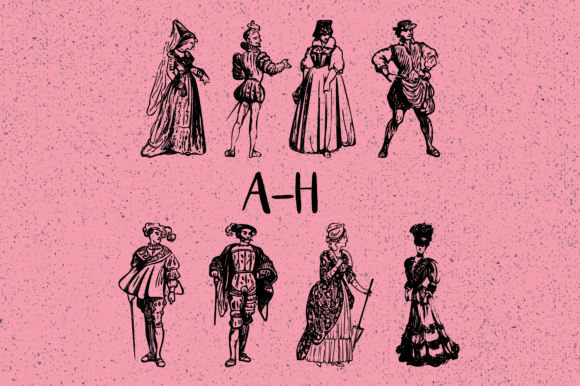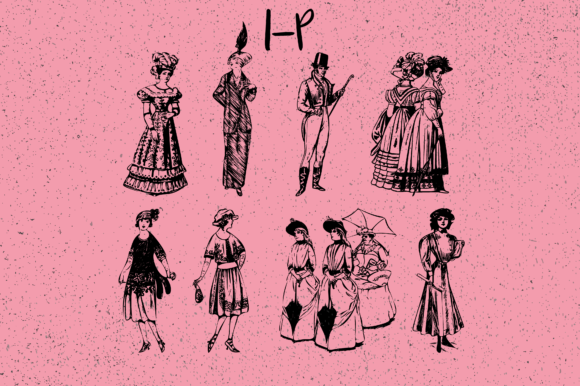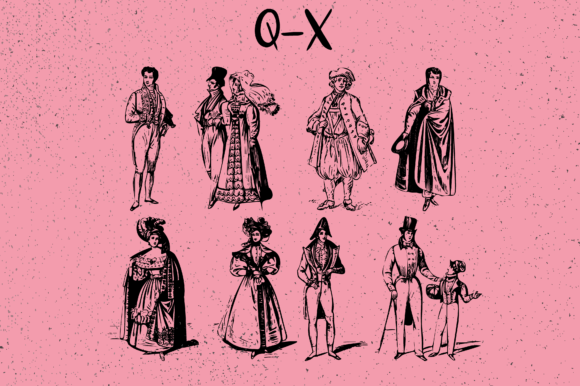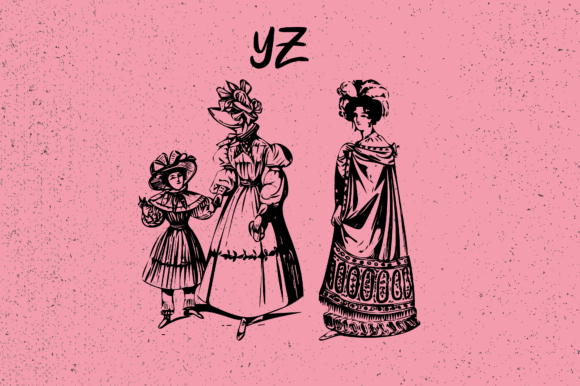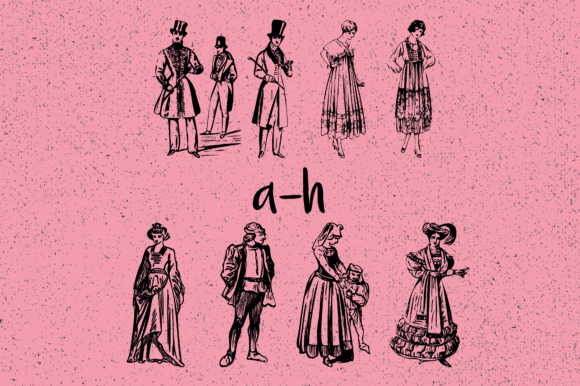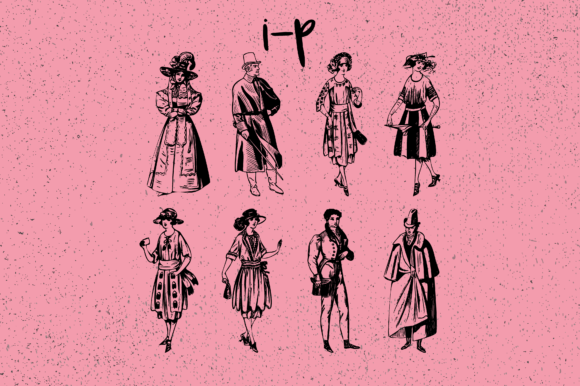
Introduction to Ladies & Gentlemen Font
Have you ever found yourself stuck in the middle of a creative project, searching for the perfect design element to bring it all together? We’ve all been there. As designers, we’re constantly on the lookout for unique resources that can elevate our work and make it truly stand out. That’s why we’re excited to introduce you to the Ladies & Gentlemen Font, a game-changing dingbats font that’s sure to become a staple in your design toolkit.
With its 62 vintage characters, this high-quality font is a treasure trove of creative possibilities. Whether you’re working on a vintage-inspired project or simply need a fun and quirky element to add some personality to your design, the Ladies & Gentlemen Font is the perfect design resource. And the best part? It’s available for free download, so you can start incorporating it into your creative projects right away.
Key Features of Ladies & Gentlemen Font
- High-quality design for various creative projects, including invitations, cards, and posters.
- Includes a wide range of characters, including uppercase and lowercase letters, numbers, and symbols.
- Designed to be highly legible and visually appealing, with a unique aesthetic that sets it apart from other fonts.
Honest Review: Ladies & Gentlemen Font
I recently stumbled upon the Ladies & Gentlemen Font and was excited to give it a try. As a designer, I’m always on the lookout for high-quality design resources to elevate my creative projects. The Ladies & Gentlemen Font is a great addition to my collection.
Here are some things that I think work well about this font:
- ✨ High-quality design: The font has a clean and sophisticated look that’s perfect for formal and professional projects.
- ✨ Versatile: The Ladies & Gentlemen Font is suitable for a wide range of creative projects, from business cards to wedding invitations.
However, I do have a few concerns about this font:
- ⚠️ Limited character set: The font only includes a limited number of characters, which may not be suitable for longer texts or more complex designs.
- ⚠️ Not suitable for informal projects: The font’s formal style may not be the best fit for more casual or playful projects.
Overall, I think the Ladies & Gentlemen Font is a solid choice for designers who need a high-quality, versatile font for their creative projects. While it may have some limitations, it’s a great addition to any design resource collection.
For optimal results, use the Ladies & Gentlemen Font in conjunction with high-contrast backgrounds and bold typography. Experiment with different font sizes and styles to create visually appealing designs.
The Ladies & Gentlemen Font is ideal for formal invitations, wedding stationery, and luxury brand designs. Its elegant and sophisticated appearance makes it perfect for high-end creative projects that require a touch of sophistication.